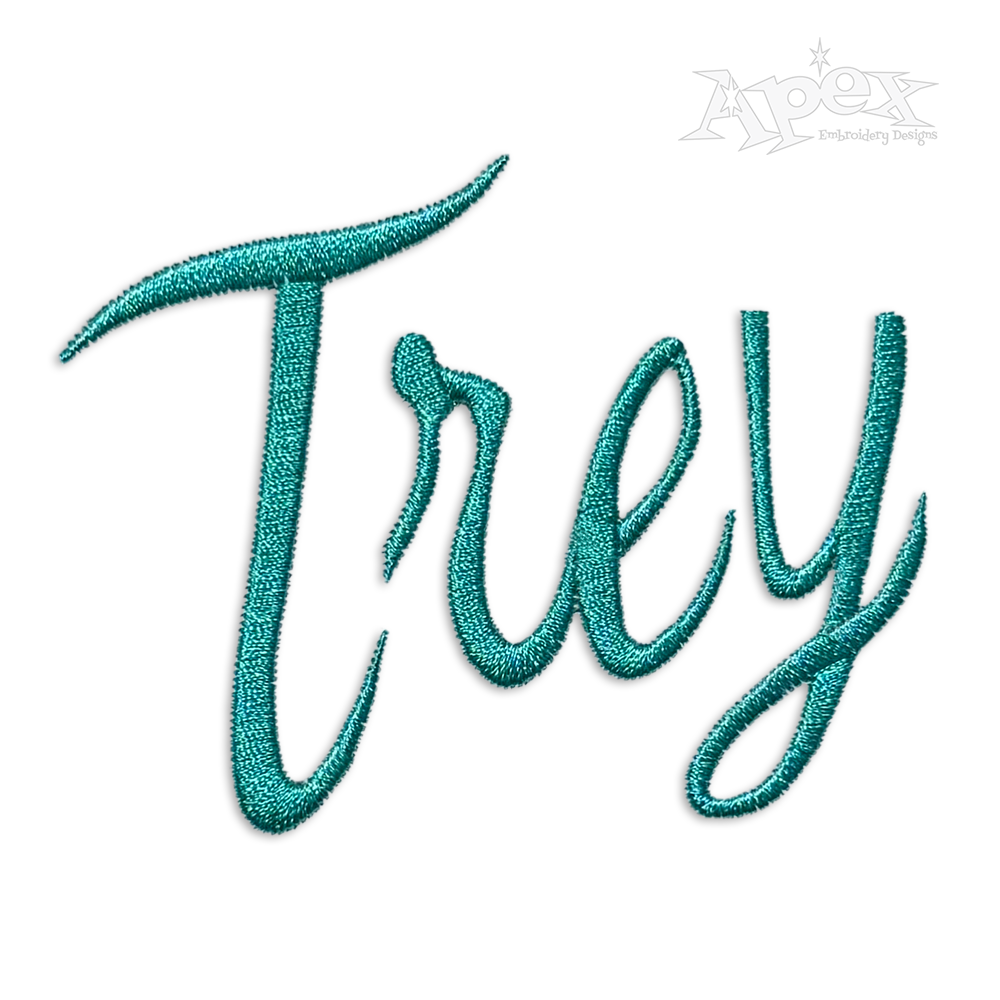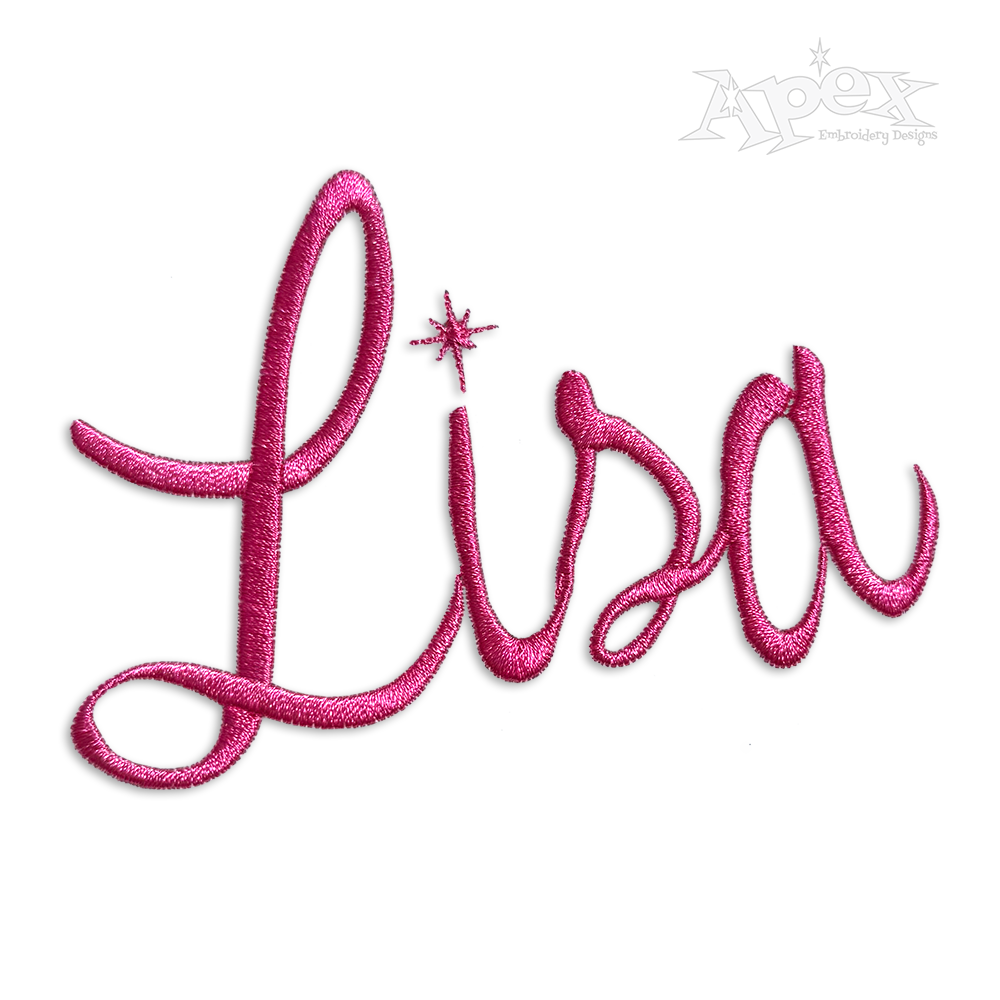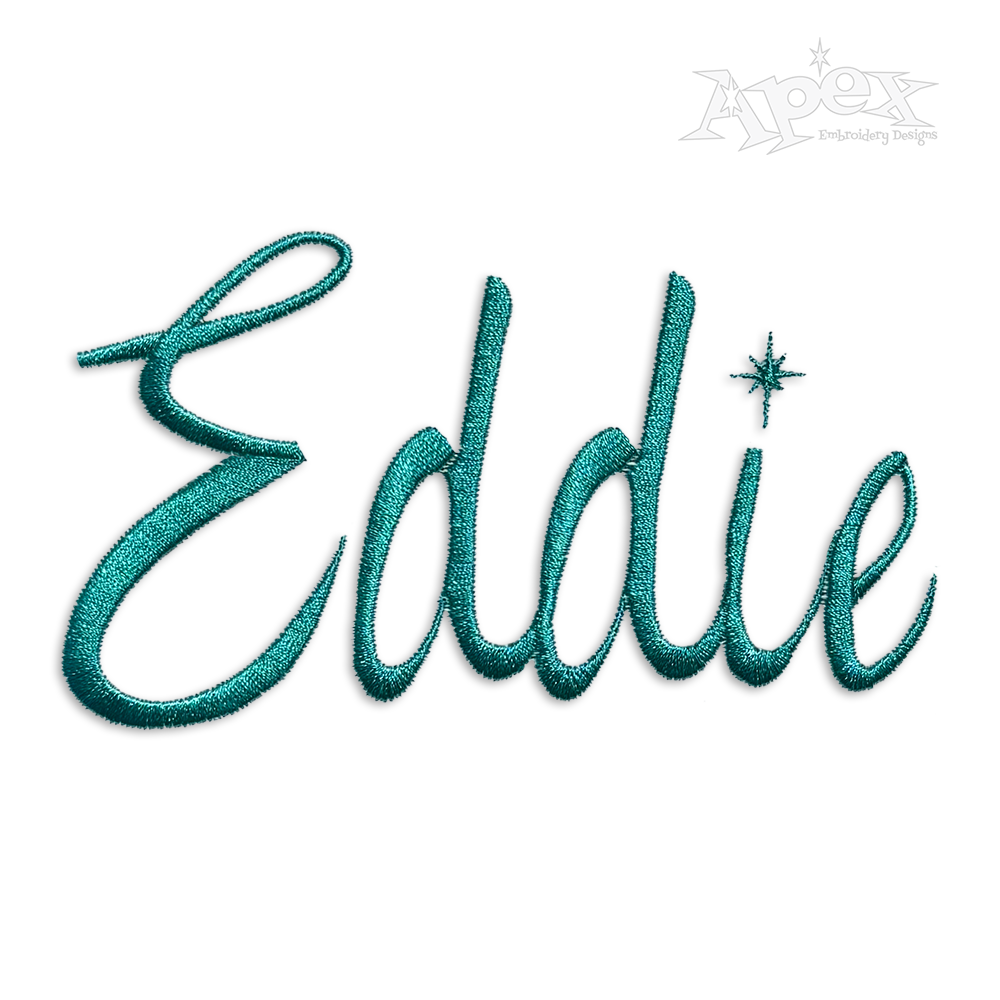
Bewitched Embroidery Font
A retro brush script with a flick of magic — the Bewitched Embroidery Font is a flowing single-stroke script with long entry and exit strokes, high loops and a small four-point sparkle in place of the dot over the i and j.
- Complete alphabet in two sizes, plus numbers and punctuation
- Single-stroke script that sews quickly and sits light on the fabric
- Sparkle accent on the i and j gives the face its retro character
- Long connecting strokes let names join into one flowing word
- Digitized by hand for clean, even satin stitching